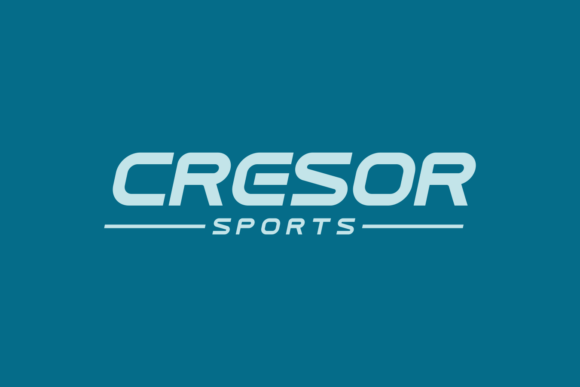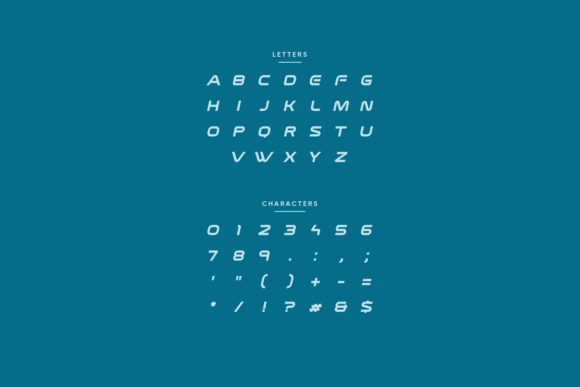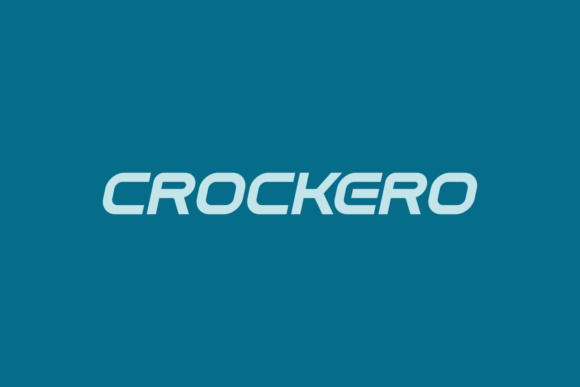
The Futuristic Font That’s Taking Designs to the Next Level: Esorise
Have you ever been in the middle of a design project, and suddenly, you just can’t seem to find the right font? I know I have. It was for a futuristic sci-fi movie poster project, and I was determined to find a font that would make it look like it belonged in a galaxy far, far away. That’s when I stumbled upon the **Esorise** font. With its unique uppercase letters and all-caps style, it instantly gave my design a sporty and hi-tech feel. In this article, I’ll share my experience with the Esorise font, its features, and how to make the most of it in your designs.
First Impressions: A Modern Futuristic Font
The Esorise font is a modern, futuristic font designed to give your designs a sleek and sporty look. Its unique uppercase letters and all-caps style make it perfect for designs that require a futuristic feel. Whether you’re working on a sci-fi movie poster, a sports brand, or a hi-tech product, Esorise is an excellent choice.
Here’s what I love about the Esorise font:
- ✨ Unique and futuristic design: The Esorise font has a distinct look that will make your designs stand out.
- ✅ Elegant and clean appearance: The font’s clean lines and elegant design make it suitable for a wide range of design projects.
- ✅ Versatile: You can use Esorise for various design projects, from logos and branding to magazine headlines and more.
And here are some small quirks or limitations:
- ⚠️ Limited use of lowercase letters: Since Esorise is an all-caps font, it may not be the best choice for designs that require a lot of lowercase text.
- 🤔 May not be suitable for body text: The Esorise font is best used for headlines and titles, as it may be too bold for body text.
The Designer Inspiration Behind Esorise
The Esorise font was designed with the goal of creating a modern, futuristic font that would be perfect for designs that require a sleek and sporty look. The designer aimed to create a font that would be versatile and easy to read, while also having a unique and distinctive look.
| What is the Esorise font best used for? | The Esorise font is best used for designs that require a futuristic and sporty look, such as sci-fi movie posters, sports branding, and hi-tech product designs. |